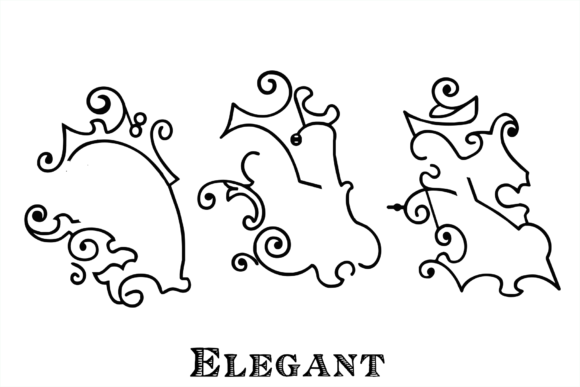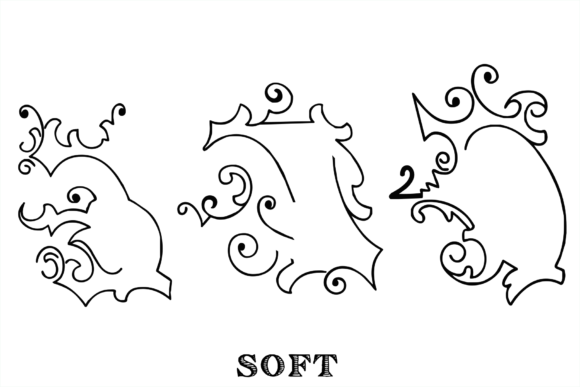
Introducing Centennial Ornaments Font: Elevate Your Designs with Elegant Decorative Elements
In the world of design, the right font can make all the difference. For those seeking to add a touch of elegance and sophistication to their projects, Centennial Ornaments Font is a game-changer. This dingbat font offers a stunning collection of decorative designs that can instantly elevate your work, whether it’s an invitation, poster, or any creative project. In this article, we’ll delve into the features and benefits of Centennial Ornaments Font, and explore how it can become an essential tool in your design arsenal.
What is Centennial Ornaments Font?
Centennial Ornaments Font is a unique dingbat font that features a wide range of decorative ornaments. These ornaments are designed to add beautiful touches to your projects, making them perfect for designers, crafters, and anyone looking to create visually appealing designs. The font includes a variety of shapes and patterns, from intricate borders and frames to elegant flourishes and accents.
Key Features of Centennial Ornaments Font
- Lovely and Handy Collection: Centennial Ornaments Font boasts a comprehensive collection of decorative designs that are both aesthetically pleasing and easy to use.
- Variety of Shapes and Patterns: The font offers a diverse range of shapes and patterns, ensuring that you can find the perfect ornament to match your design style.
- Ease of Use: Centennial Ornaments Font is designed to be user-friendly, allowing you to effortlessly incorporate the ornaments into your projects.
- Versatility: Whether you’re working on invitations, posters, or any other creative project, Centennial Ornaments Font is the perfect addition to your design toolkit.
Benefits of Using Centennial Ornaments Font
So, why should you choose Centennial Ornaments Font for your design projects? Here are just a few benefits:
- Enhanced Visual Appeal: With Centennial Ornaments Font, you can add a touch of elegance and sophistication to your designs, making them stand out from the crowd.
- Time-Saving: The font’s user-friendly design and comprehensive collection of ornaments save you time and effort, allowing you to focus on the creative aspects of your project.
- Consistency: Centennial Ornaments Font ensures consistency in your designs, providing a cohesive look and feel that ties your project together.
How to Use Centennial Ornaments Font
Using Centennial Ornaments Font is straightforward and easy. Here’s a step-by-step guide to get you started:
- Choose Your Ornament: Browse through the collection of ornaments and select the one that best suits your design.
- Copy and Paste: Copy the ornament and paste it into your design project.
- Adjust and Customize: Adjust the size, color, and position of the ornament to fit your design.
To get the most out of Centennial Ornaments Font, here are some tips and tricks:
- Experiment with Different Sizes: Play around with different sizes to find the perfect balance for your design.
- Mix and Match: Combine different ornaments to create a unique and eye-catching design.
- Use as a Frame or Border: Use the ornaments as a frame or border to add a touch of elegance to your design.
Centennial Ornaments Font is a versatile and elegant dingbat font that offers a wide range of decorative designs to enhance your projects. With its user-friendly design, comprehensive collection of ornaments, and ease of use, it’s an essential tool for designers, crafters, and anyone looking to create visually appealing designs. Whether you’re working on invitations, posters, or any other creative project, Centennial Ornaments Font is the perfect addition to your design toolkit.